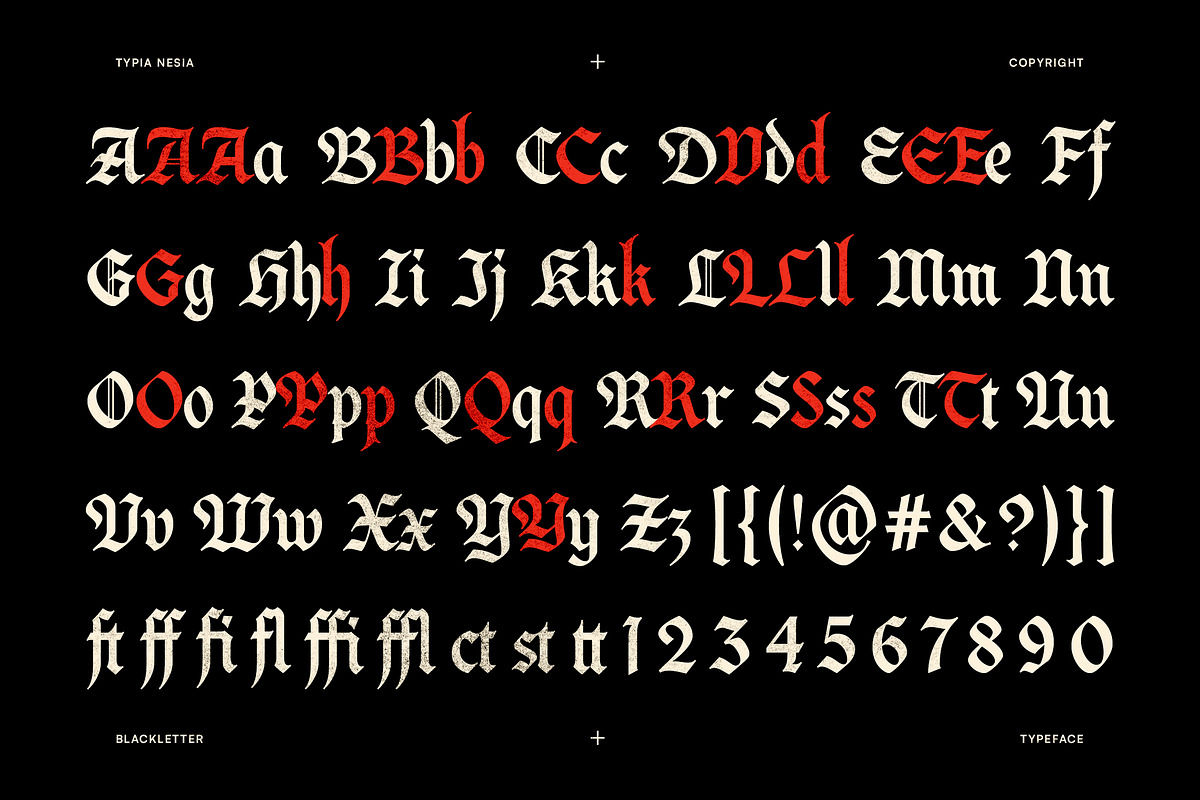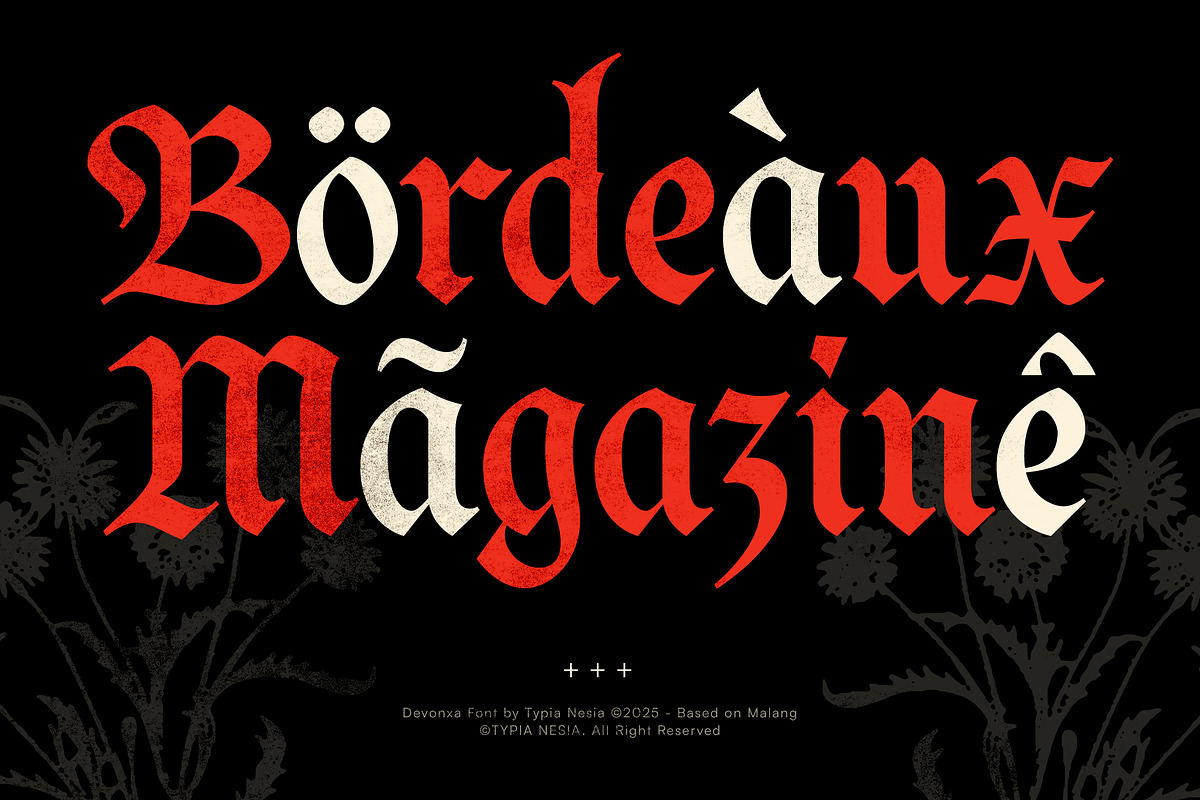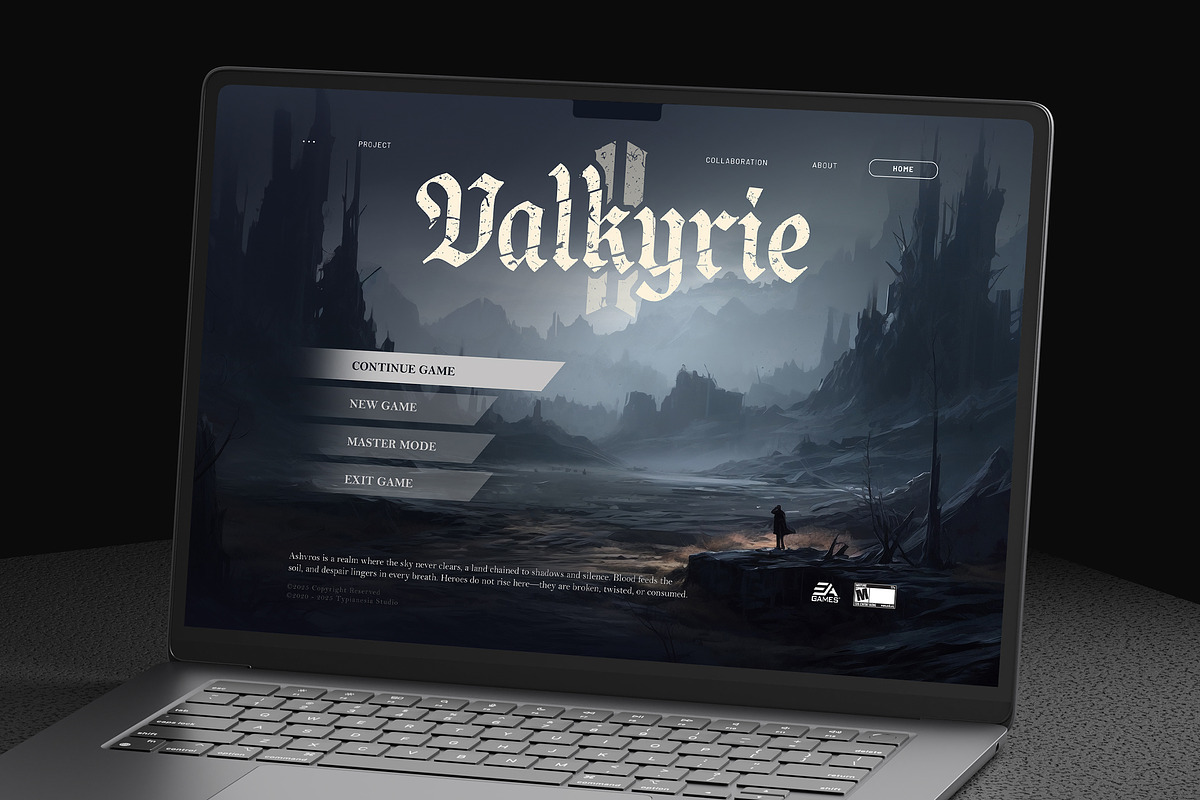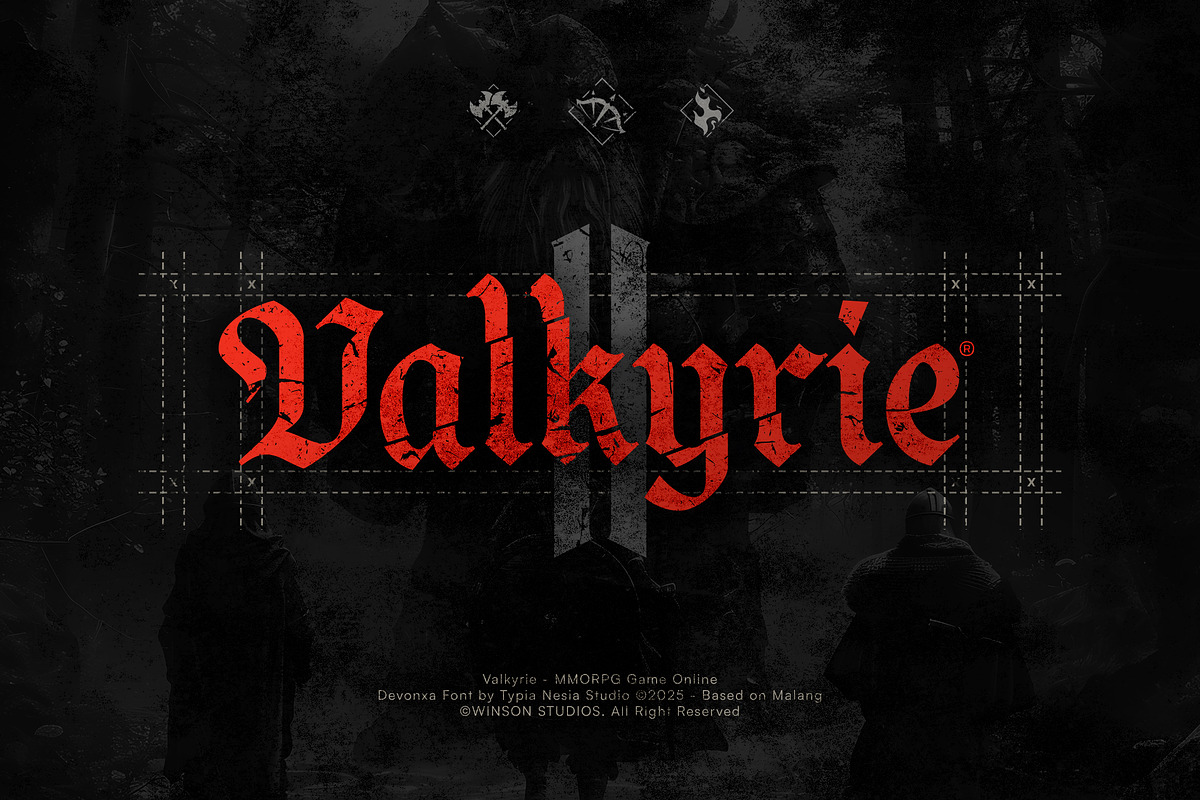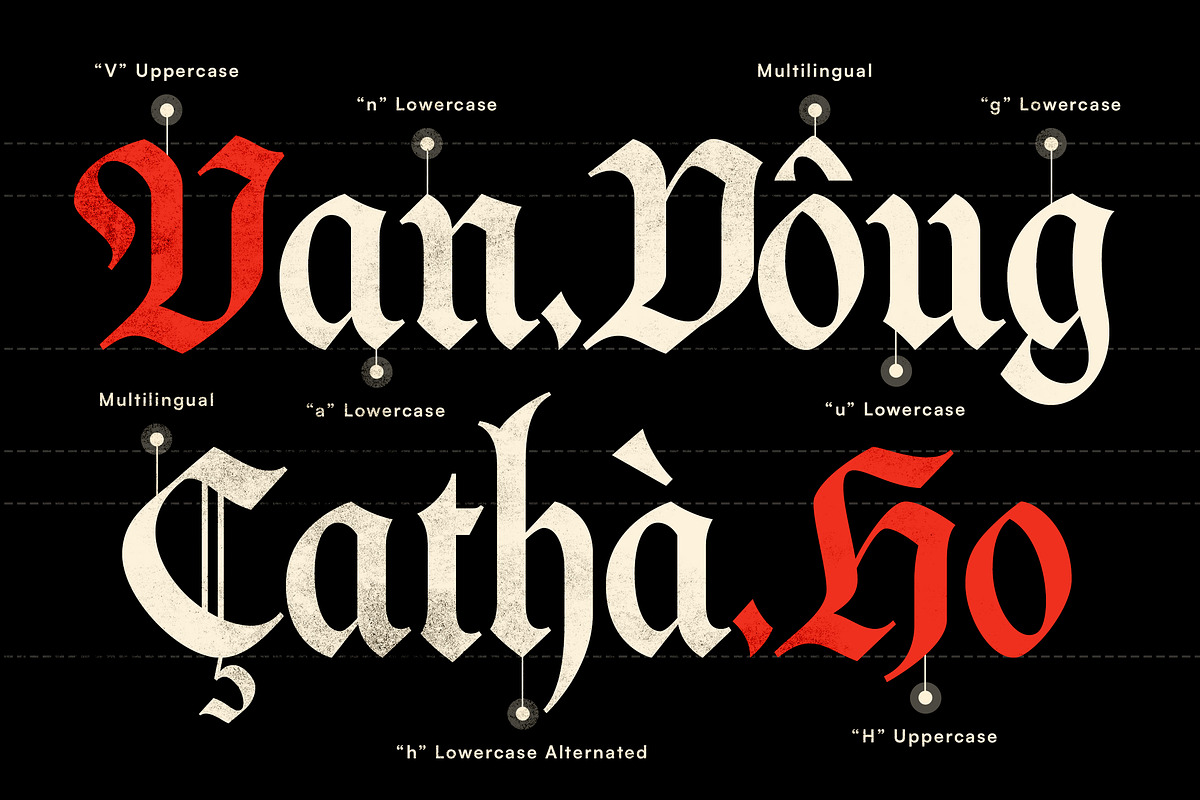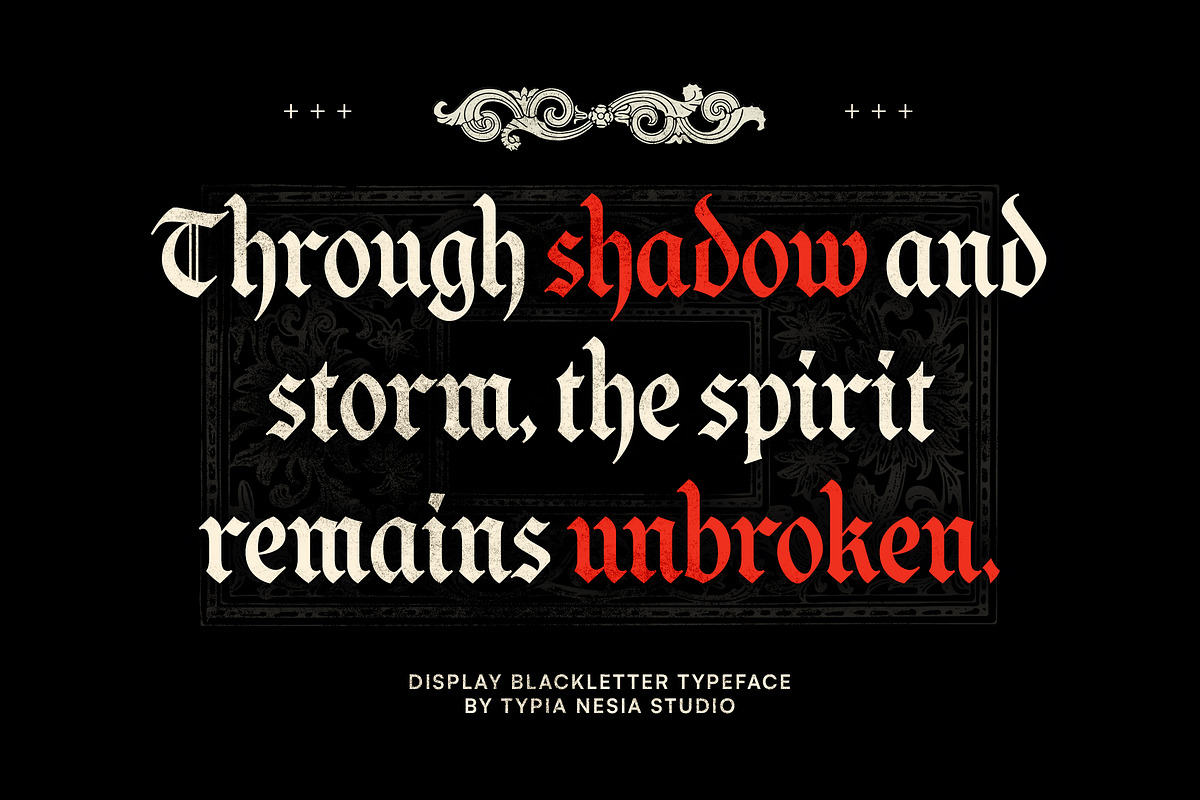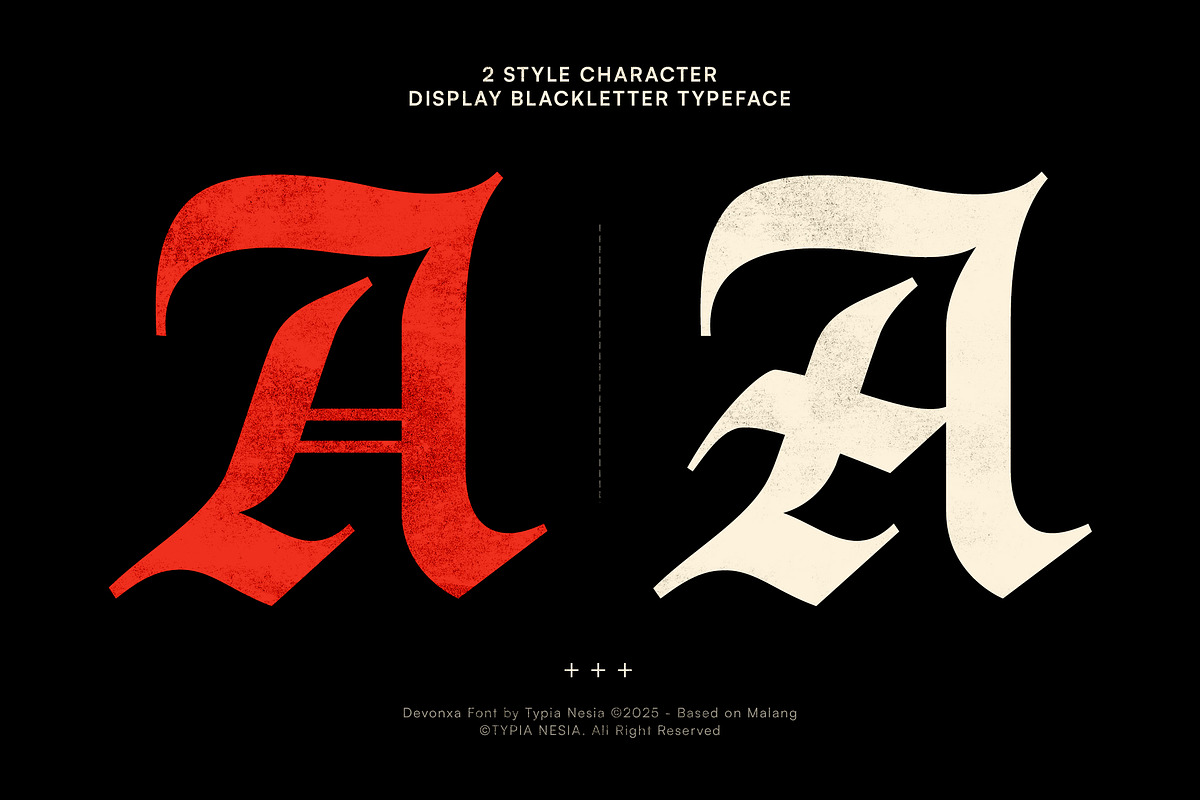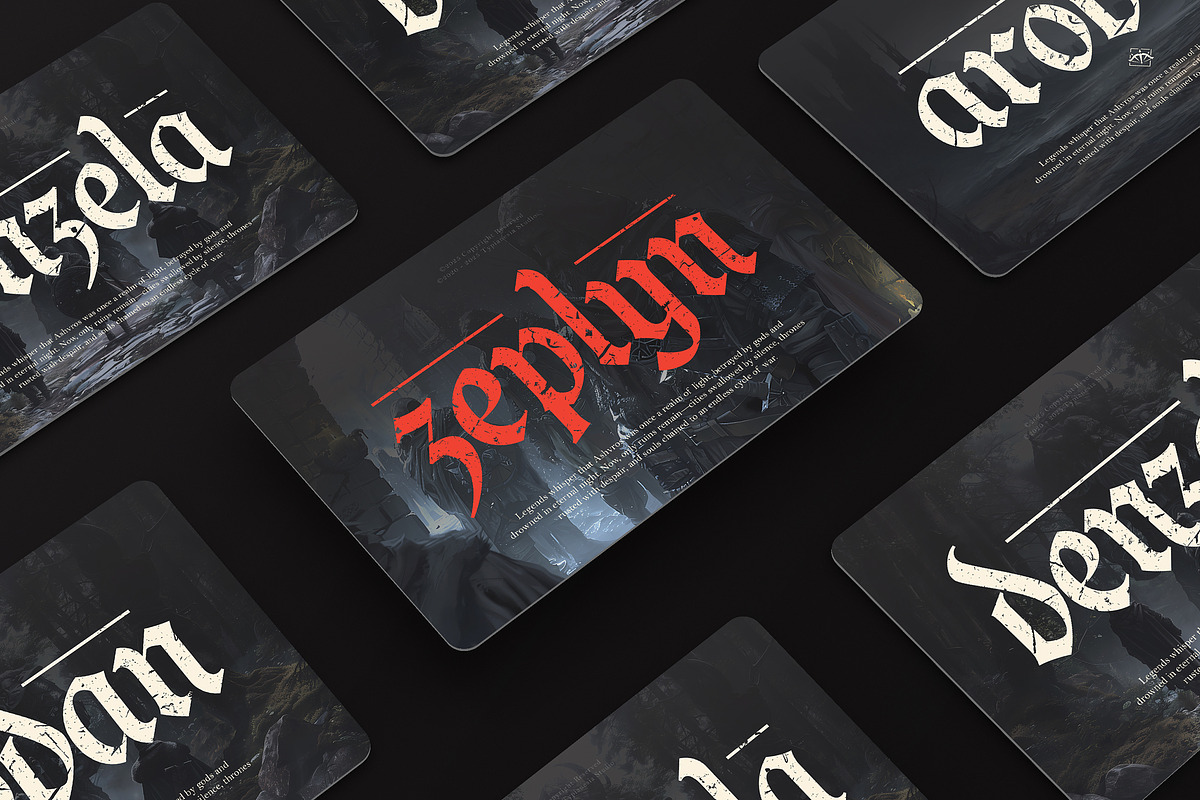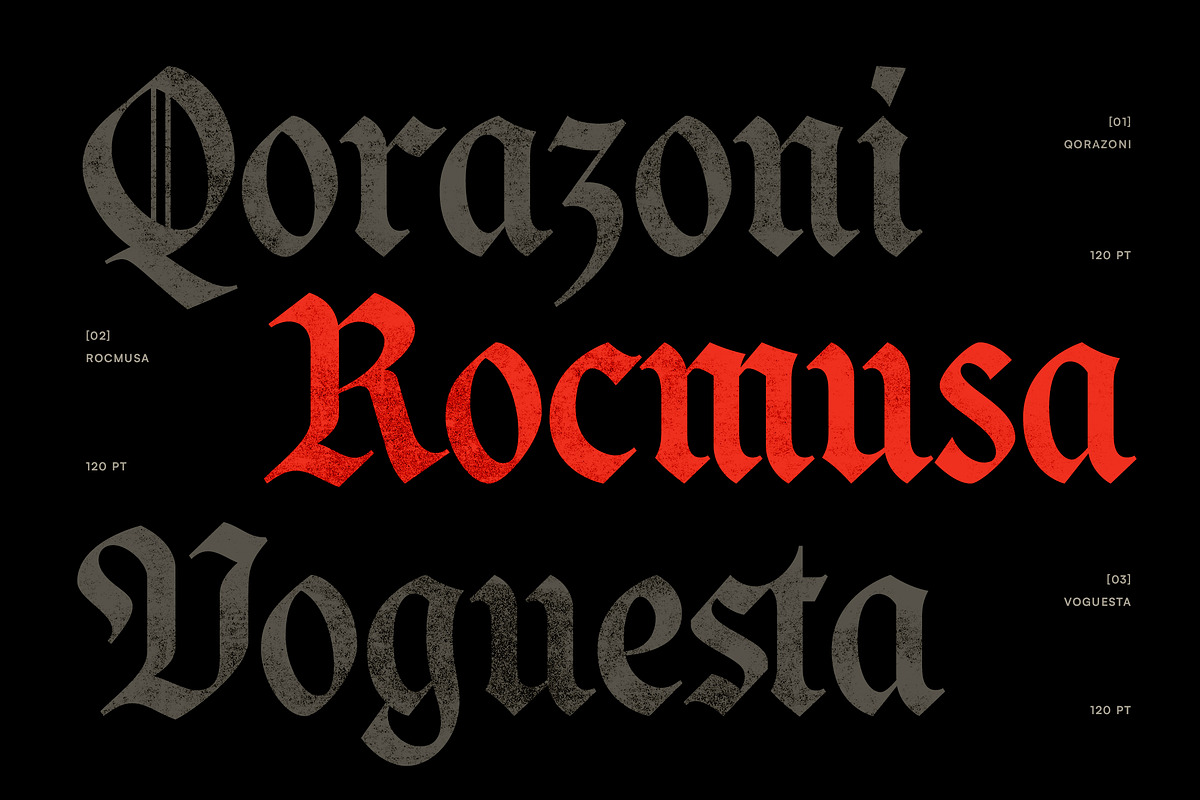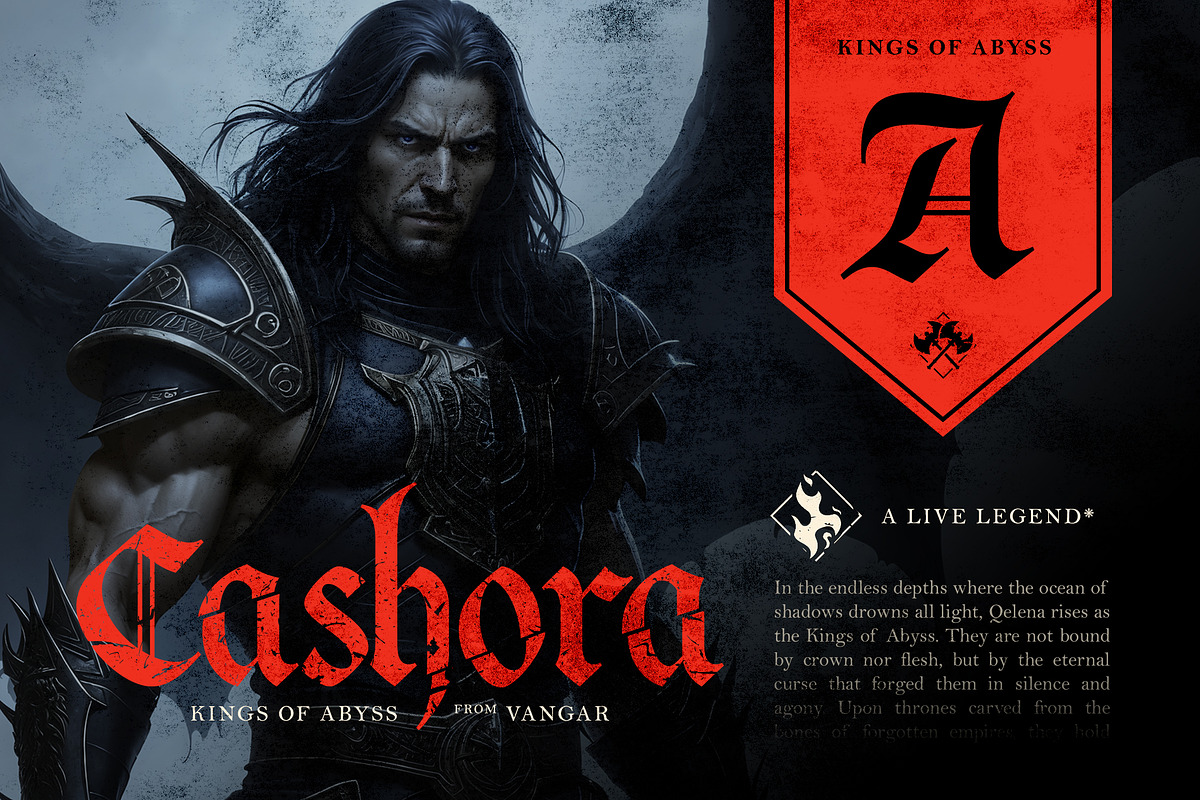
Devonxa - Modern Blackletter Font
Devonxa - Gothic Blackletter Font - Modern & Classic Vintage Logo Display Font
Devonxa is a bold and powerful modern Gothic blackletter font that blends the spirit of medieval Old English style with a sharp contemporary edge. Designed with strong, angular strokes and dramatic letterforms, this typeface delivers an intense visual impact, making it perfect for music merchandise, band logos, game titles, esports branding, horror posters, bold logo creations, hardcore music visuals, underground culture, and any project that requires a touch of dark aesthetics while maintaining a clean and modern structure.